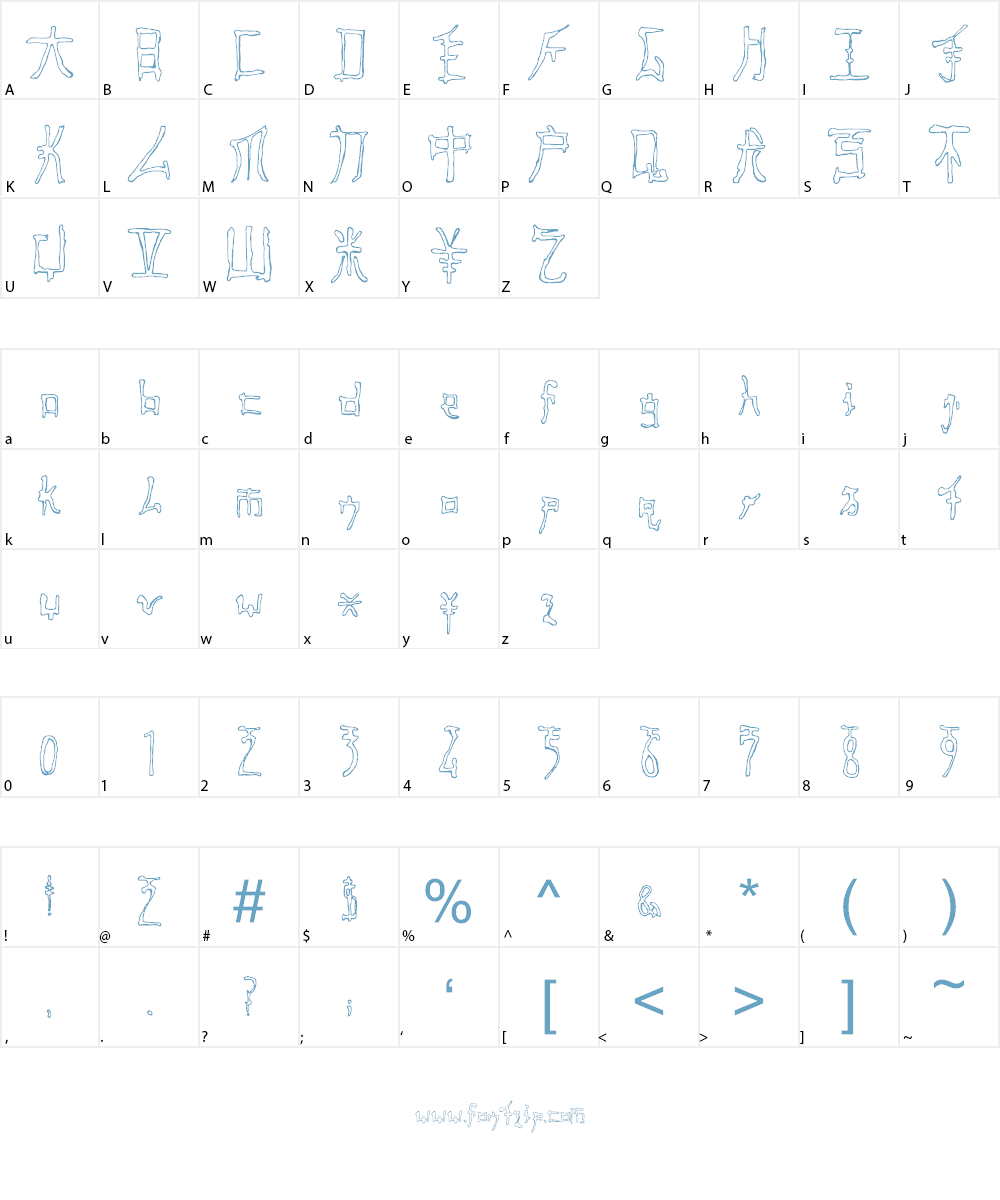
This font was inspired by Chinese characters. It was done using a crayon dipped in blue food colouring. If you are interested in using it for commercial purposes, 99c will get you that at https://www.creativefabrica.com/designer/shelley-2 The background image with the sword is by Mohamed Hassan at Pixabay. The boy holding the umbrella image is by Sasint on Pixabay. *Add your own flare to this font by using Text Effects in WordArt inside Microsoft Word.